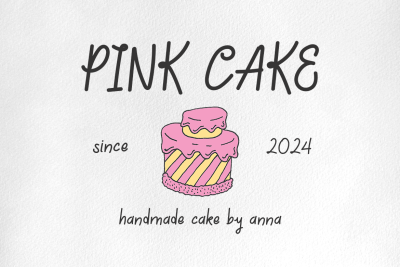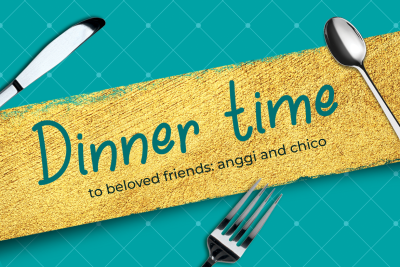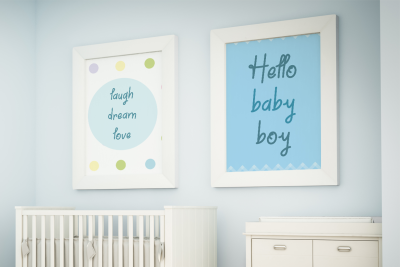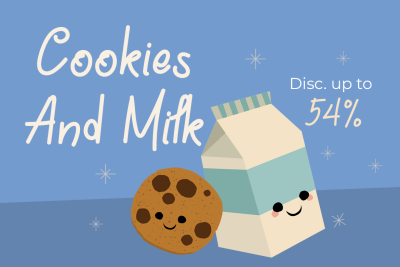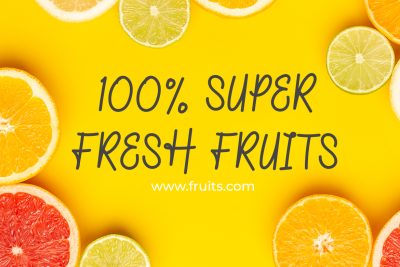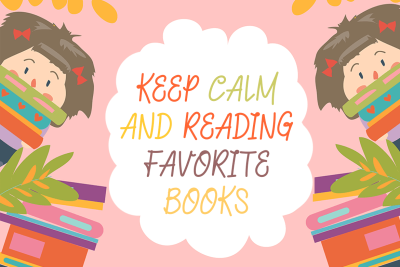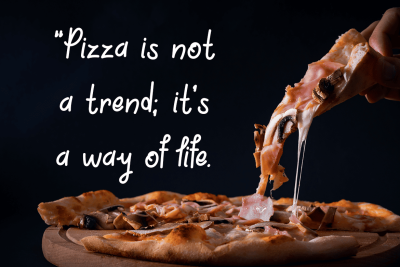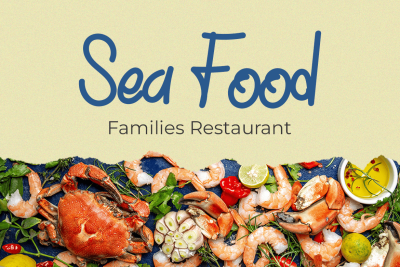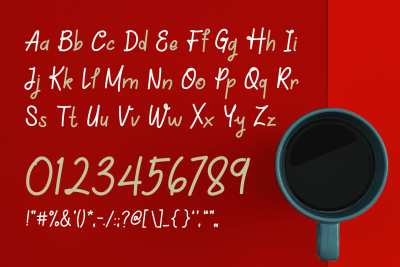
Handwriting Font CARBLOAD is a bold, energetic, and expressive handwritten typeface that adds a lively touch to any design. With its dynamic strokes and smooth, casual letterforms, CARBLOAD captures the essence of hand-drawn typography with a modern twist. Whether you need a font that exudes playfulness or one that enhances brand personality, this font delivers a striking balance of legibility and character. Inspired by the spontaneity of natural handwriting, CARBLOAD seamlessly blends casual charm with professional appeal.
Designed with a fluid structure and consistent weight, Handwriting Font CARBLOAD is highly versatile, making it ideal for projects that need a touch of warmth and authenticity. The natural flow of each letter creates a personal and inviting feel, while its boldness ensures visibility and impact. Whether you’re designing for print or digital use, CARBLOAD provides a stylish and modern solution for diverse creative needs. Furthermore, its versatility makes it perfect for branding, marketing materials, and editorial content that require a friendly yet confident touch.
Handwriting Font CARBLOAD Suitable For
Handwriting Font CARBLOAD is an excellent choice for designers, business owners, and content creators looking to infuse their work with an energetic and casual feel. This font is particularly well-suited for:
- Food and Beverage Branding โ Perfect for restaurant menus, cafe signage, and artisanal product packaging that needs a friendly and handmade touch.
- Social Media Graphics โ Enhances Instagram posts, Pinterest pins, and YouTube thumbnails with a bold and eye-catching appeal.
- Marketing and Advertising โ Ideal for promotional materials, posters, and banners that need a warm yet impactful design.
- Personalized Merchandise โ Works great for t-shirts, mugs, tote bags, and other custom products with a handwritten aesthetic.
- Recipe Books and Cookbooks โ Adds an authentic and inviting touch to food-related publications and recipe collections.
- Creative DIY Projects โ Suited for scrapbooking, greeting cards, and handmade crafts that require a unique handwritten feel.
Handwriting Font CARBLOAD combines style, energy, and authenticity, making it a must-have for designers and creatives. Whether you’re working on branding, digital content, or print media, this font helps your designs stand out with its natural yet refined appearance. Bring a touch of warmth and personality to your projects with Handwriting Font CARBLOAD, and let your creativity flow effortlessly.